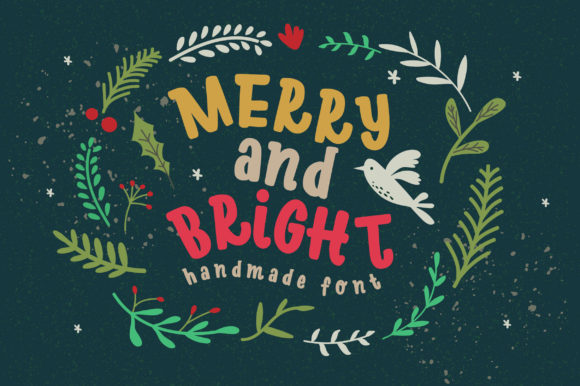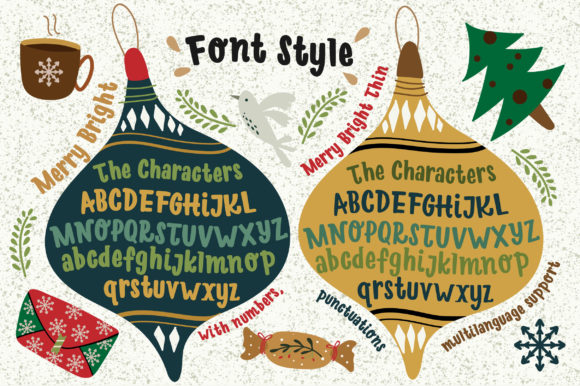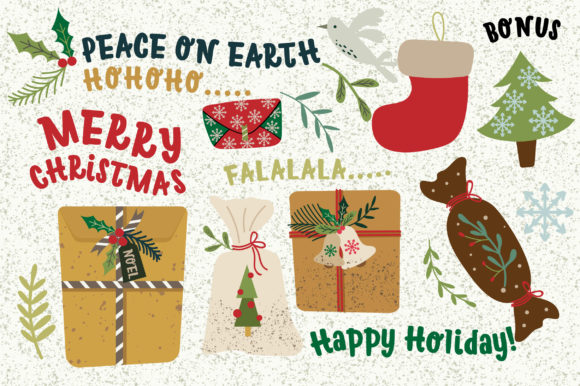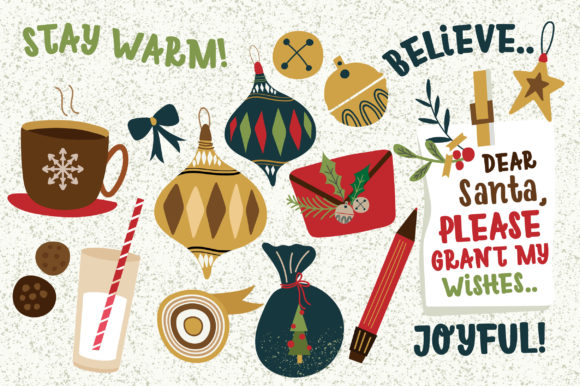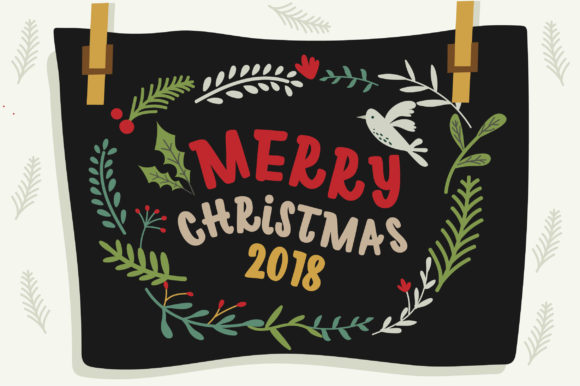
Merry Bright Font
About Merry Bright Font
The Merry and Bright is a handmade script typeface. It has a fun and playful feel which makes it perfect for Christmas related designs!
Included as a bonus are cute Christmas illustrations!